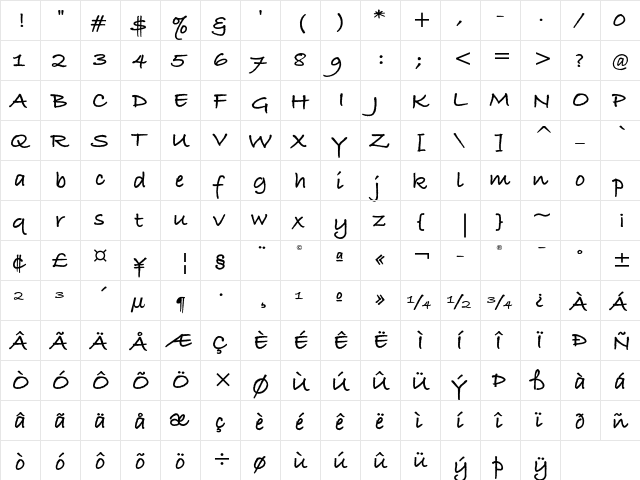
Bradley Hand ITC Std Bold
| Designer | Richard Bradley |
Design Context for Bradley Hand ITC Std Typeface
Bradley Hand ITC Std flows with the natural rhythm of handwritten lettering, making it ideal for designs that call for warmth and personal expression. Its bold stroke weight gives it real presence on the page.
Font Pairing: Combine Bradley Hand ITC Std with a simple geometric sans for maximum contrast — the tension between flowing curves and clean structure is a classic typographic pairing.
Pro Tip: Use Bradley Hand ITC Std for short runs of text — names, titles, or taglines. Extended body copy in script faces tires the eye quickly.